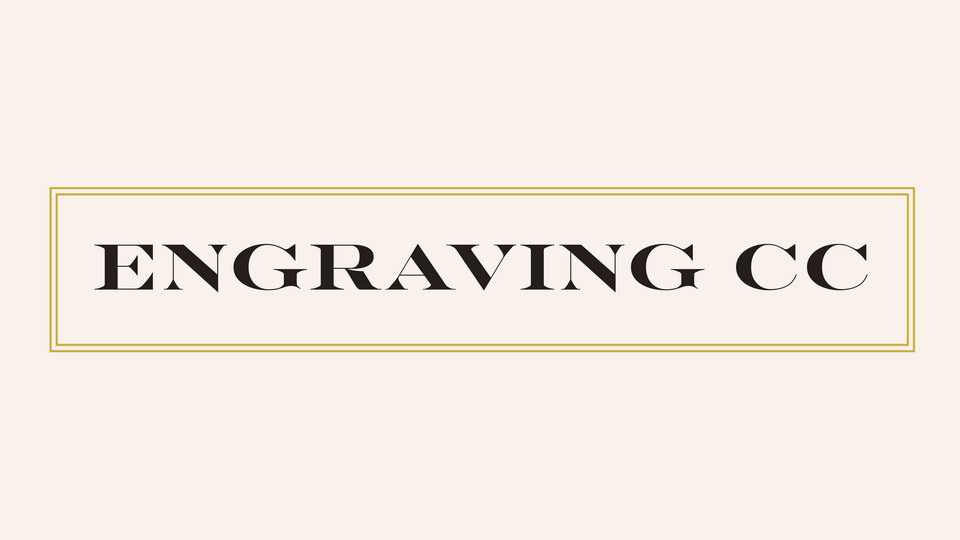
Download Engraving CC typeface, a classic serif font family in three styles. Engraving CC is a revival based off of the Engravers typeface offered by the American Type Founders.
Designer: Indestructible Type